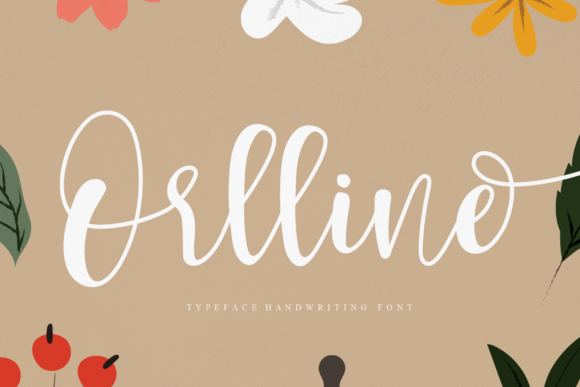
Indulge in the enchanting world of Orlline, a script font that dances across the digital canvas with grace and fluidity. Its delicate strokes evoke a sense of nostalgia, while its flowing curves create a captivating visual experience.
Immerse yourself in the versatility of Orlline, a font that effortlessly transforms from elegant wedding invitations to alluring social media posts. Its timeless charm will grace any occasion, adding a touch of sophistication and warmth.
Unleash your creativity with Orlline, the perfect companion for designing eye-catching Facebook ads that captivate your audience. Its legible yet distinctive style ensures your message stands out from the crowd, leaving a lasting impression.
With Orlline, you'll discover a font that ignites your imagination. Its enchanting strokes will inspire you to create breathtaking designs that evoke emotion and leave an unforgettable mark. Embrace the allure of Orlline today and let your creativity soar.